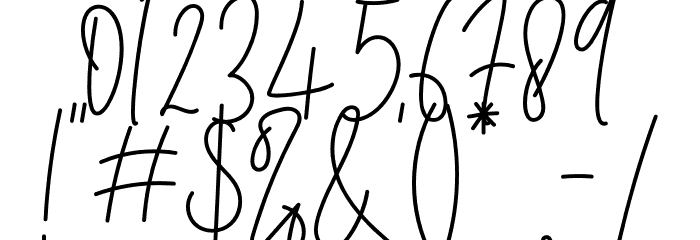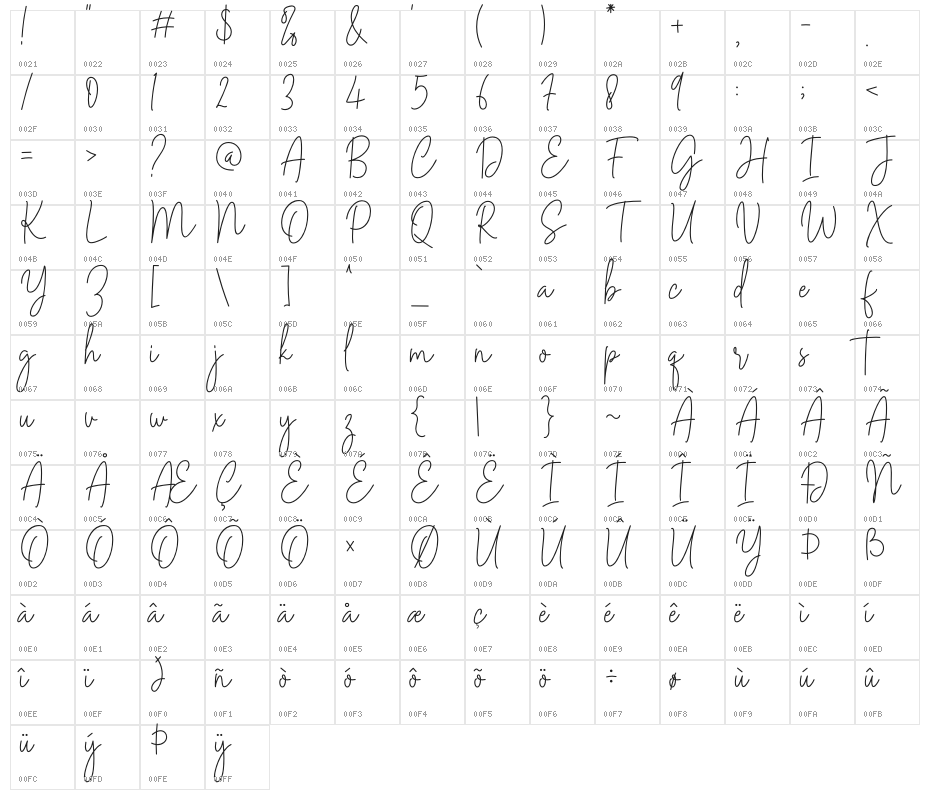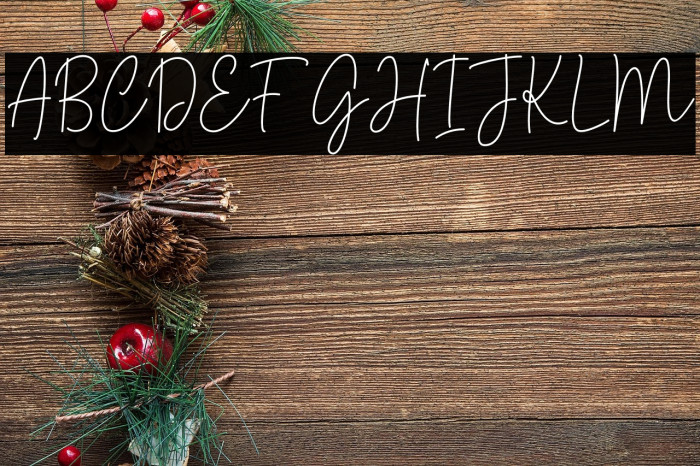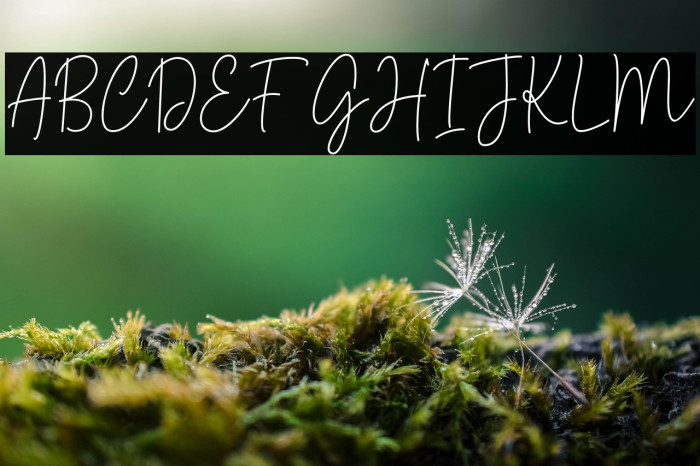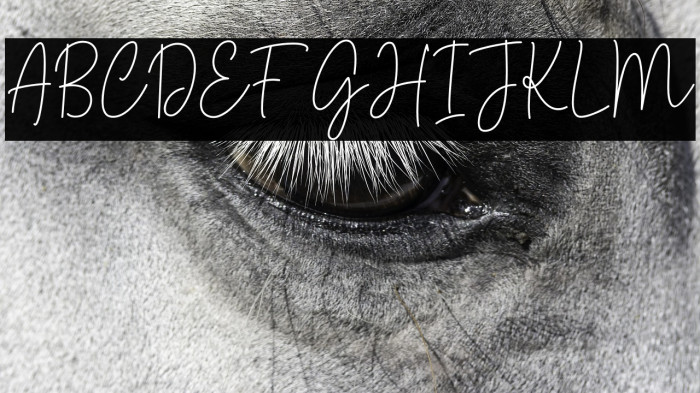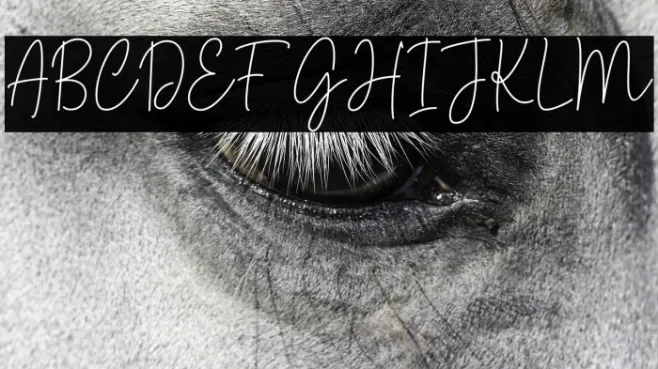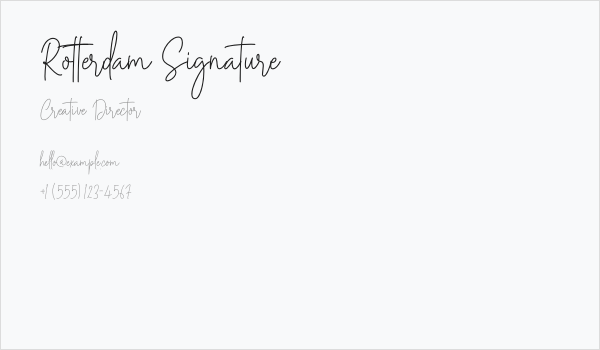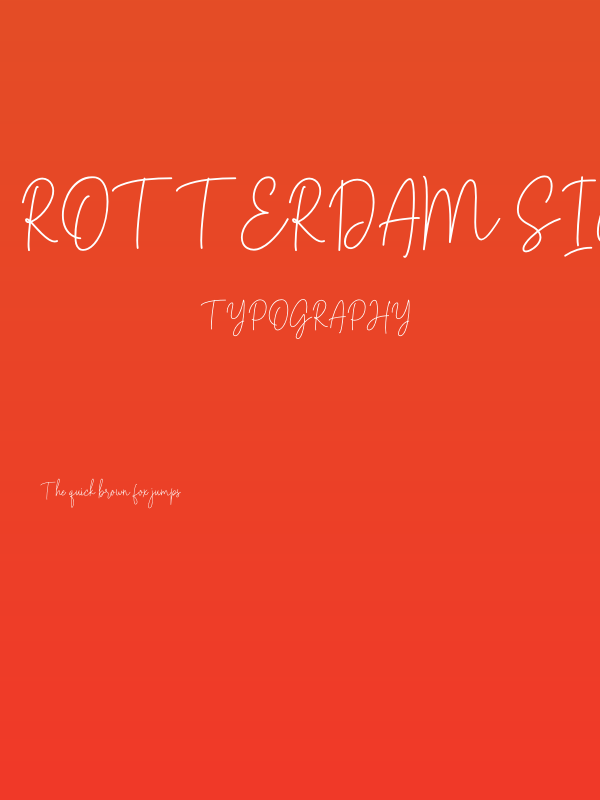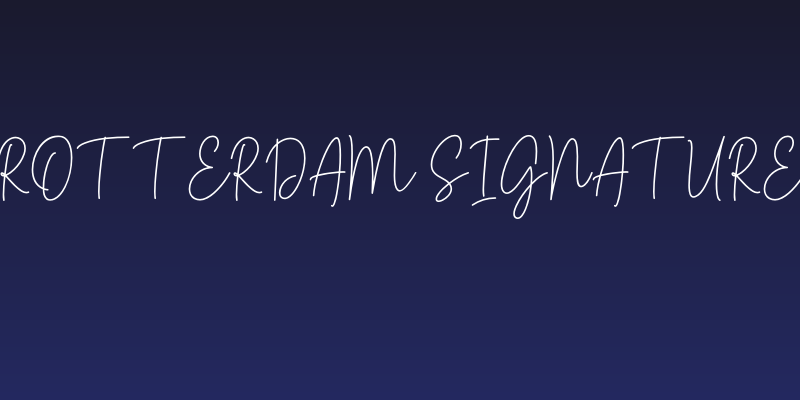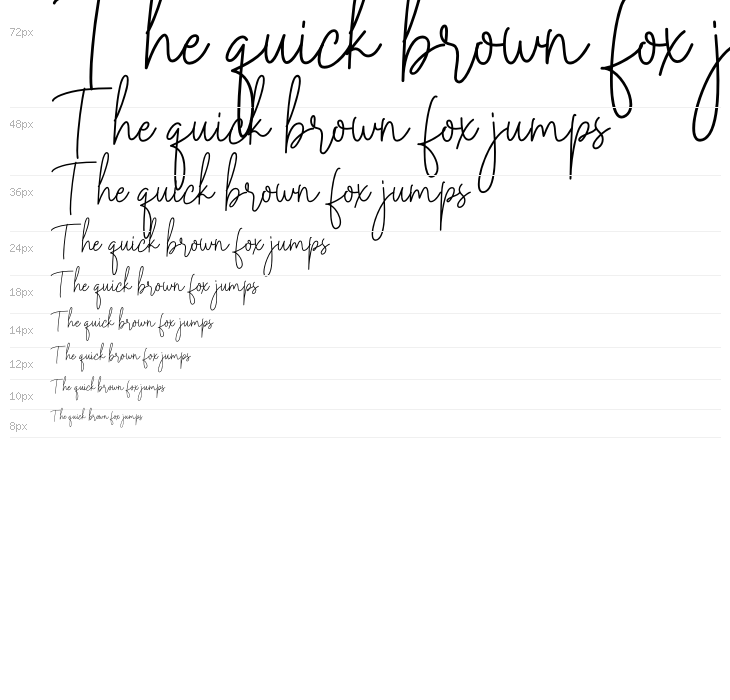
Rotterdam Signature Font
Rotterdam Signature Description
This font exudes a modern and elegant handwritten style, characterized by its fluid and cursive strokes. The letters are connected in a way that mimics natural handwriting, giving it a personal and intimate feel. The uppercase letters maintain a consistent height, while the lowercase letters exhibit a slight variation in size, adding to the organic look. The numerals and special characters are crafted with the same flowing lines, ensuring a cohesive appearance throughout. This font is perfect for projects that require a touch of sophistication and warmth, such as invitations, personal branding, or creative projects.
| Proposed Projects | Ideal for invitations, personal branding, and creative projects requiring a sophisticated touch. |